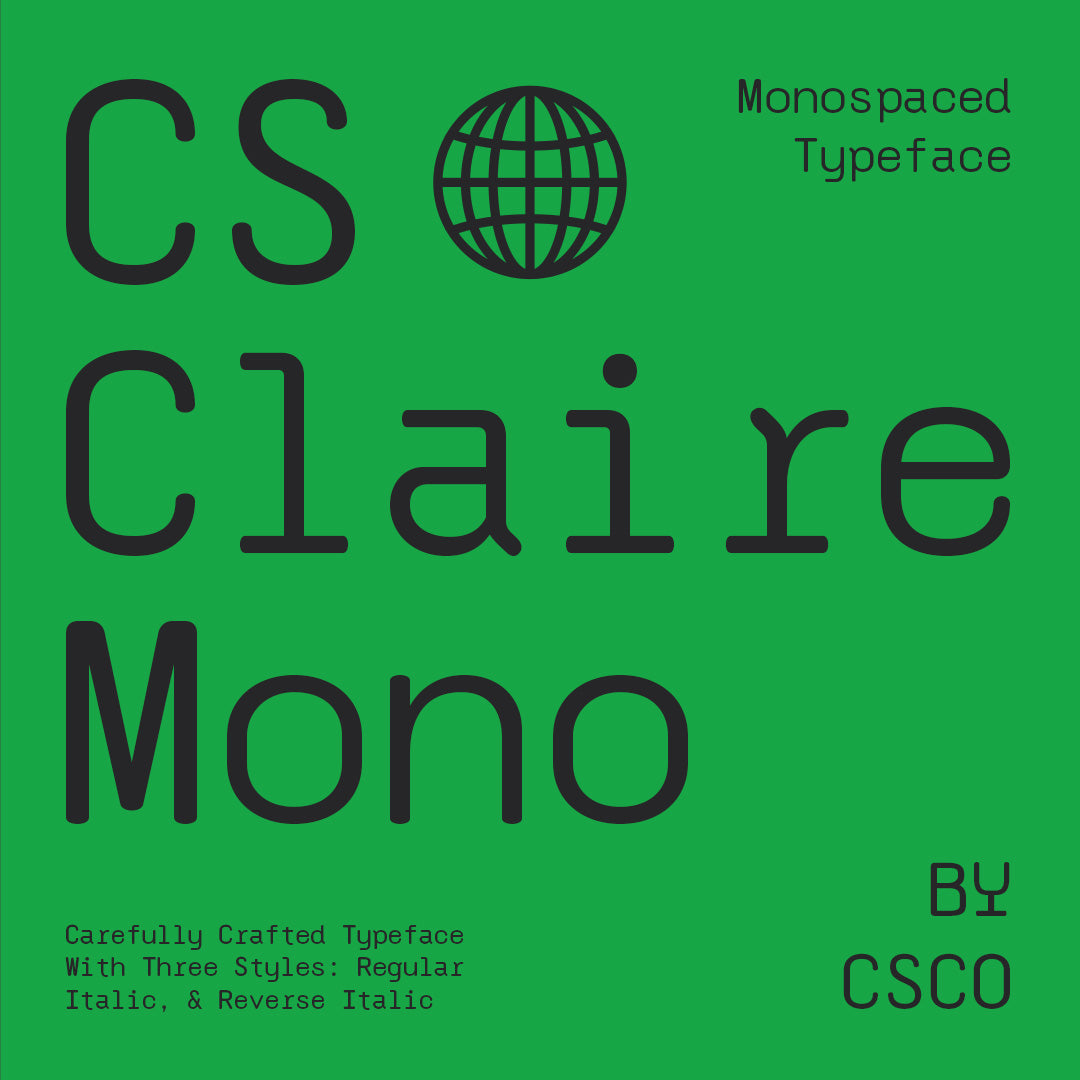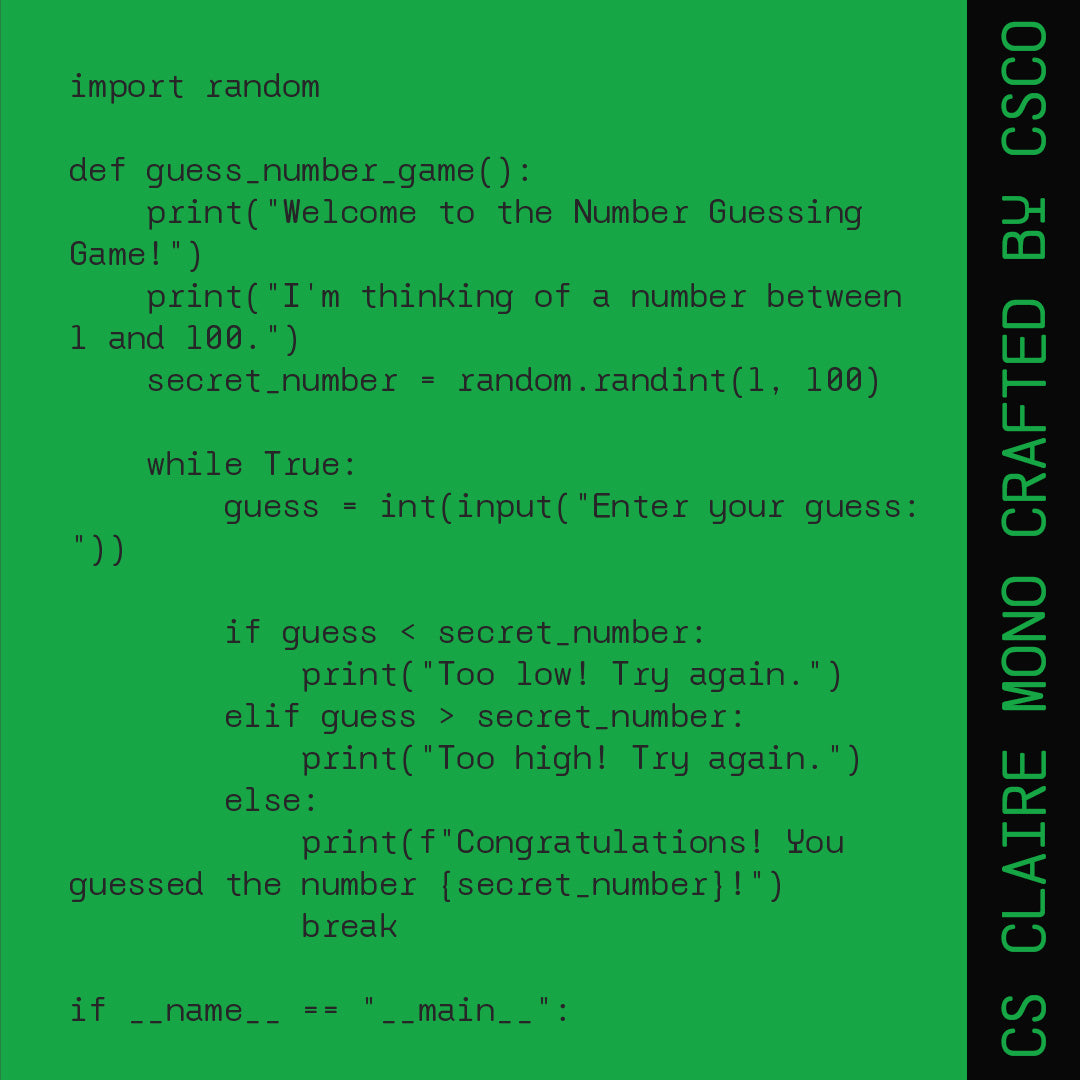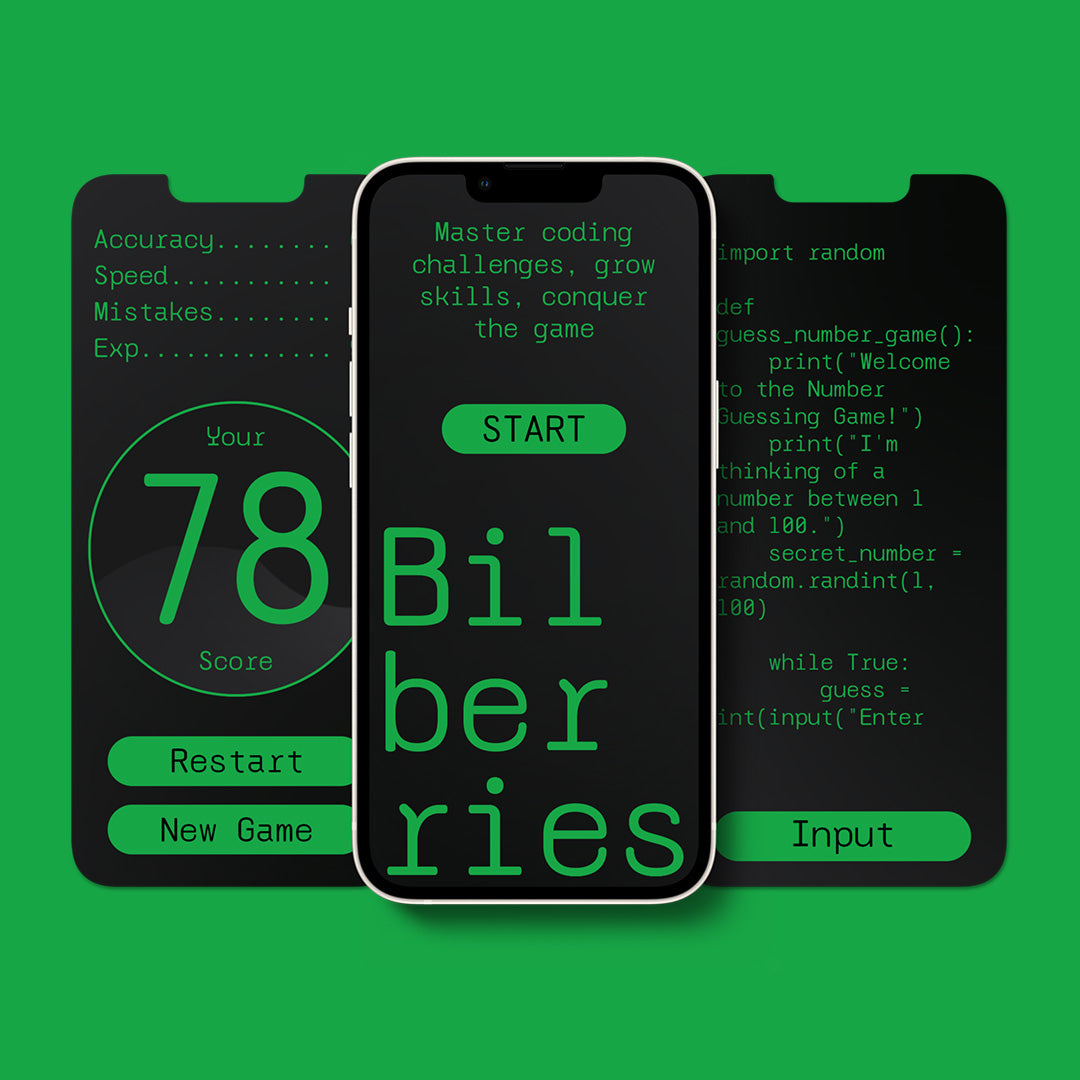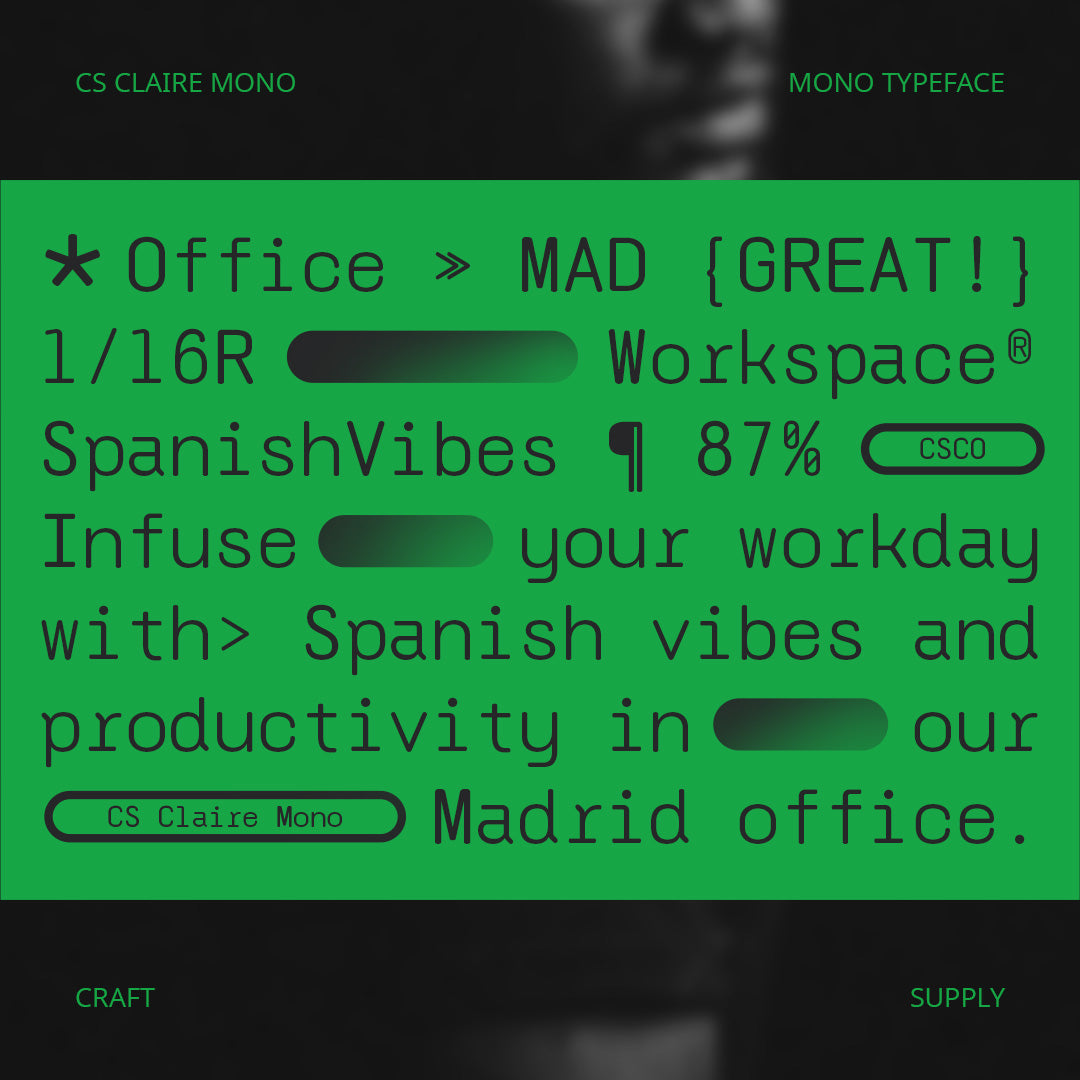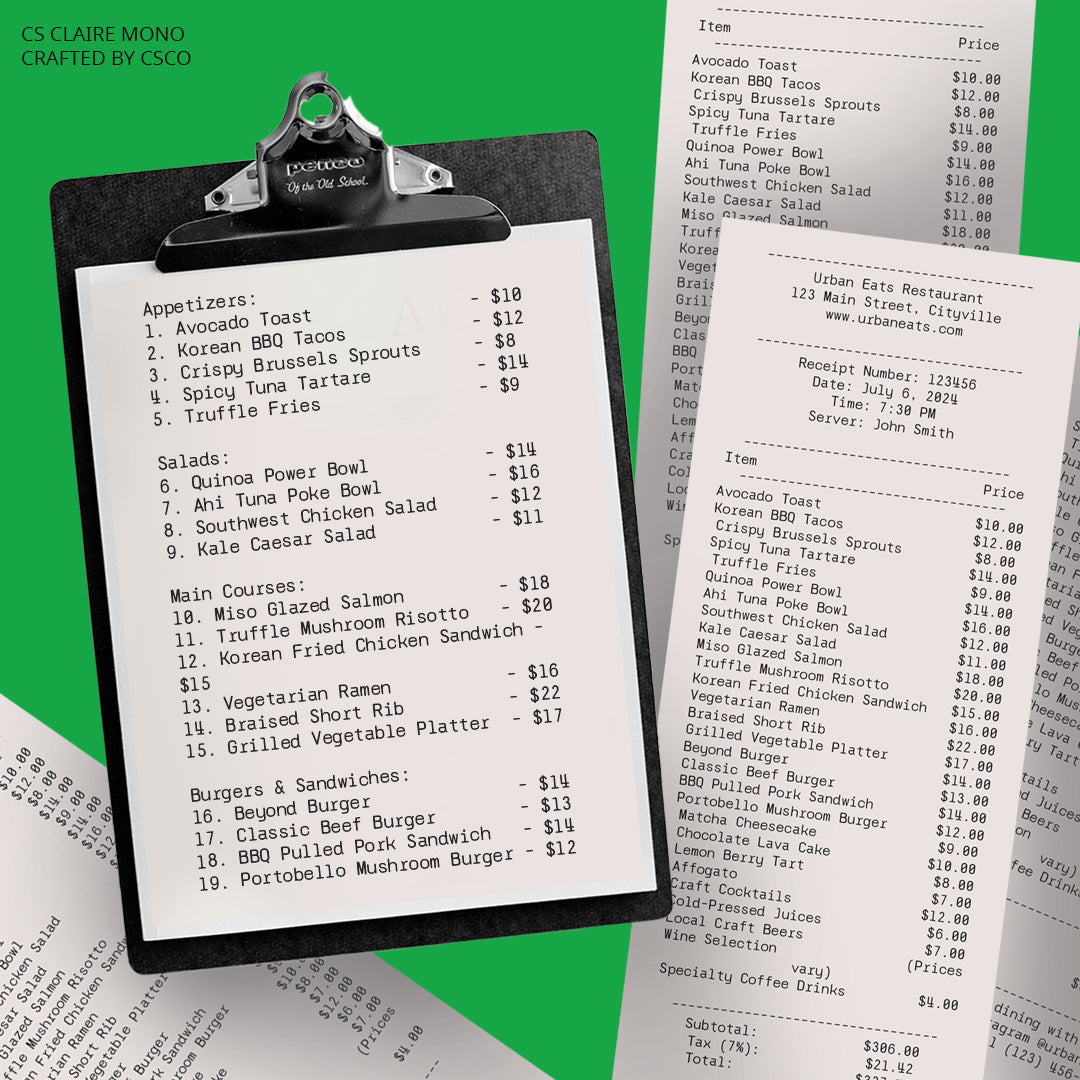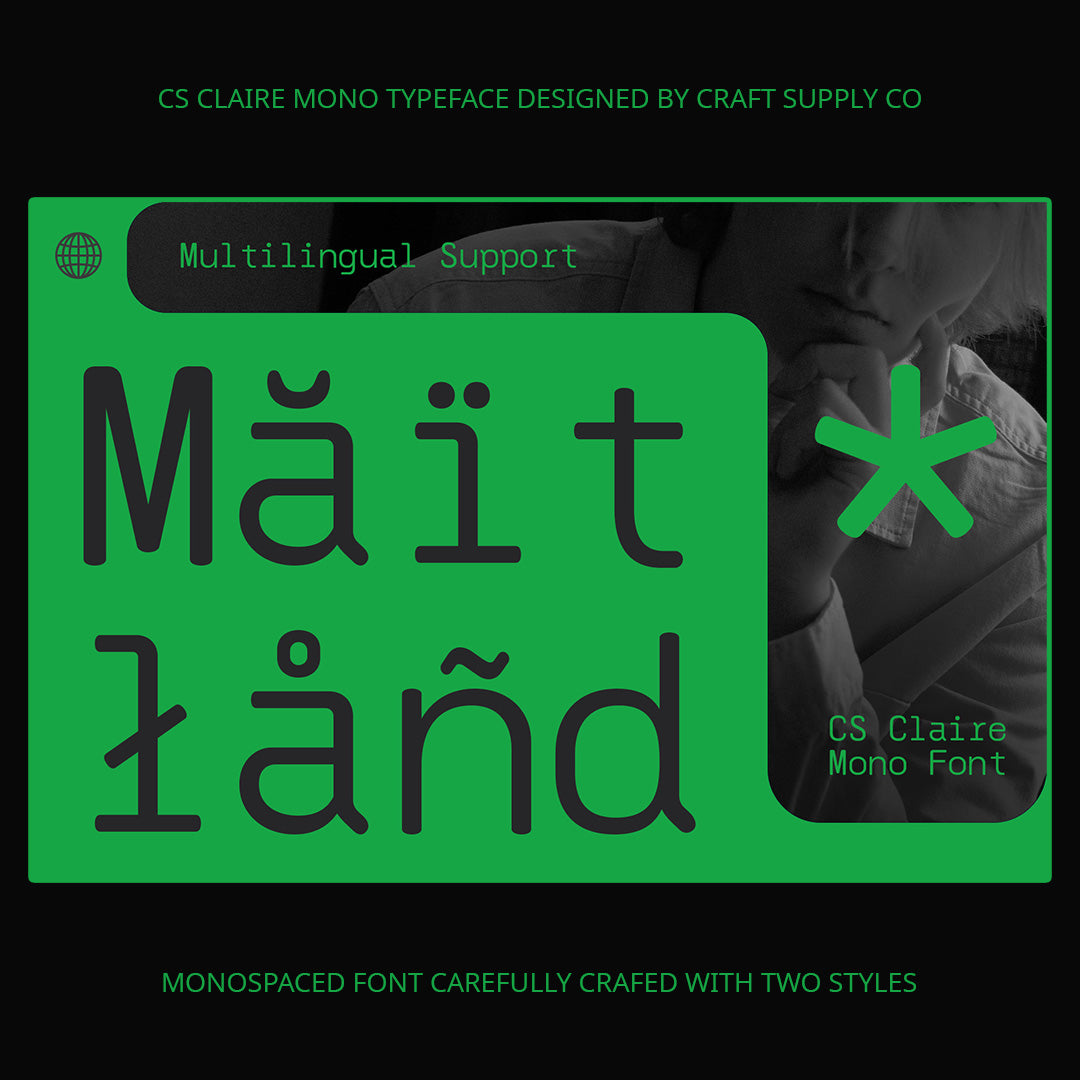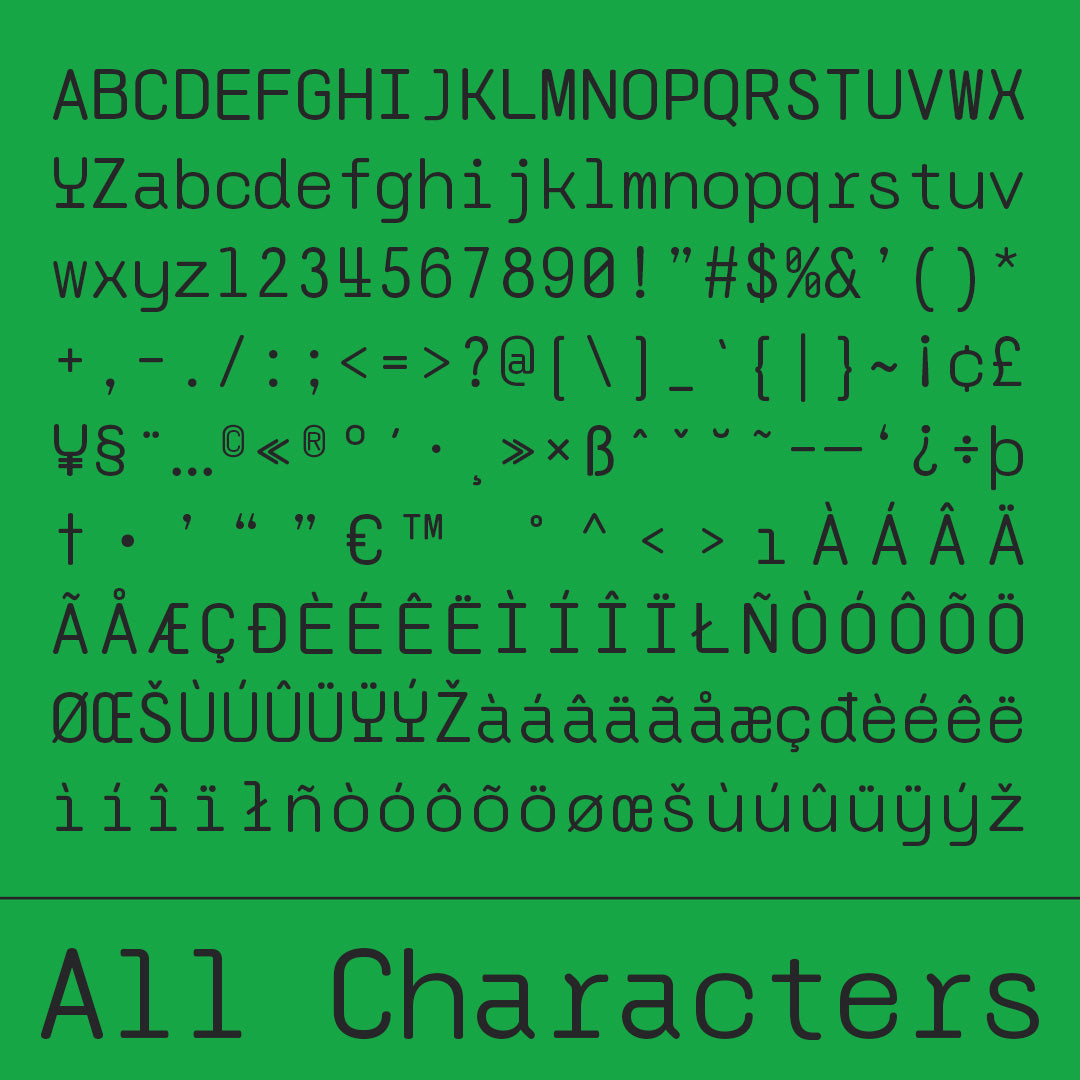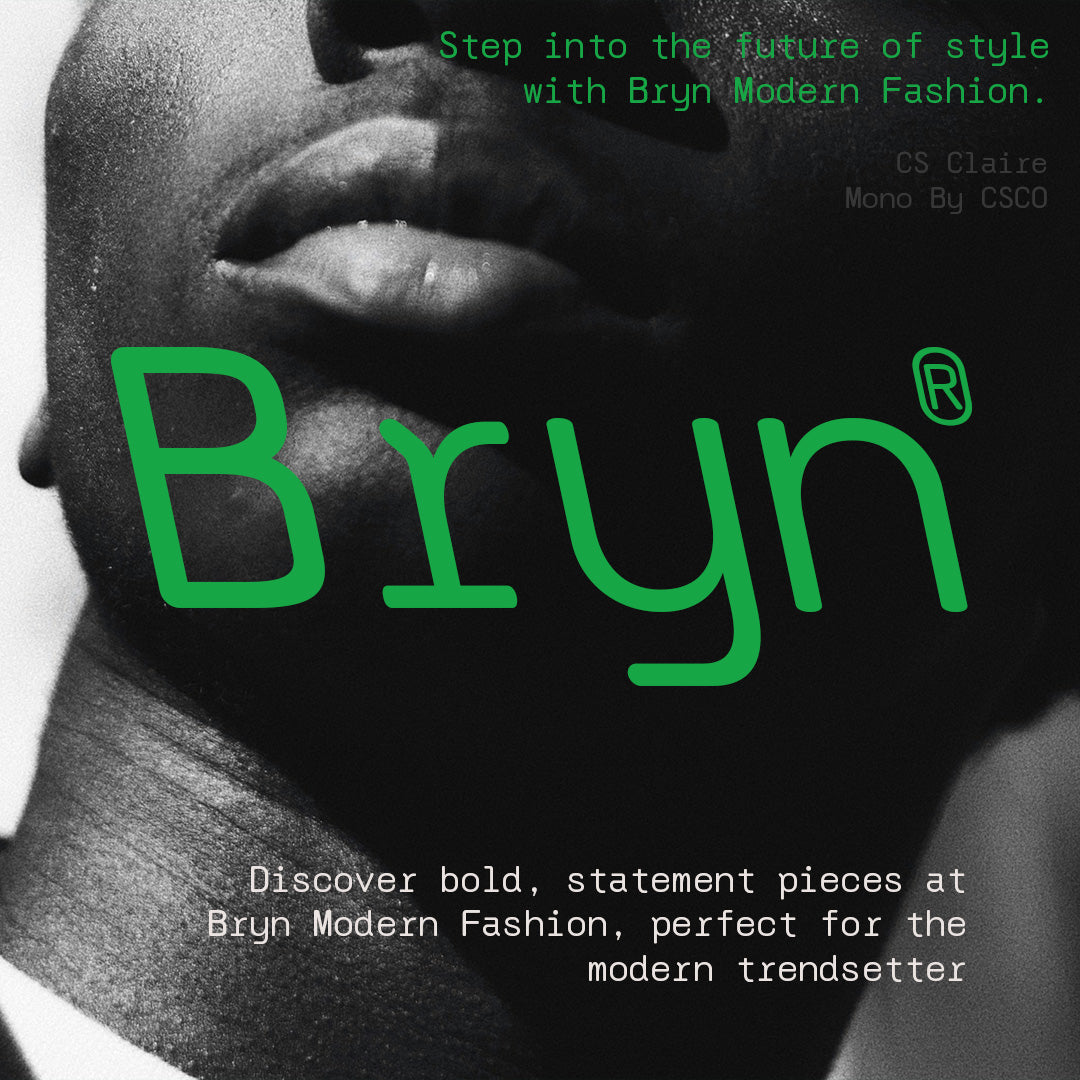
CS Claire Mono – Monospaced Typeface
CS Claire Mono – Monospaced Typeface: Clarity and Professionalism
Modern Monospaced Sans-Serif Font
CS Claire Mono is a meticulously designed modern monospaced sans-serif font, meticulously crafted to ensure clarity and elegance across a wide range of applications. Whether used for shopping receipts or programming layouts, its precise shapes and dedication to readability make it an ideal choice for technical and professional environments.
Precision in Design
Designed with precise shapes, this CS Mono sans serif font ensures consistent character widths and clarity in text, enhancing readability across various digital and print mediums. Its clean lines and balanced proportions maintain a crisp appearance, perfect for conveying information clearly and effectively.
Enhance Your Design Projects
Choose this font to elevate your design projects with its combination of precision, professionalism, and elegant simplicity. Whether you’re crafting user interfaces, preparing technical documents, or designing promotional materials, this CS Mono sans serif font ensures your content not only communicates effectively but also leaves a lasting impression of clarity and professionalism.
1. CS Claire Mono Regular
2. CS Claire Mono Italic
3. CS Claire Mono Reverse Italic
CS Claire Mono is a modern monospaced sans-serif typeface designed for clarity and professionalism, featuring precise shapes and consistent character widths for enhanced readability. The font package includes CS Claire Mono Regular, Italic, and Reverse Italic styles, making it suitable for a variety of digital and print applications.